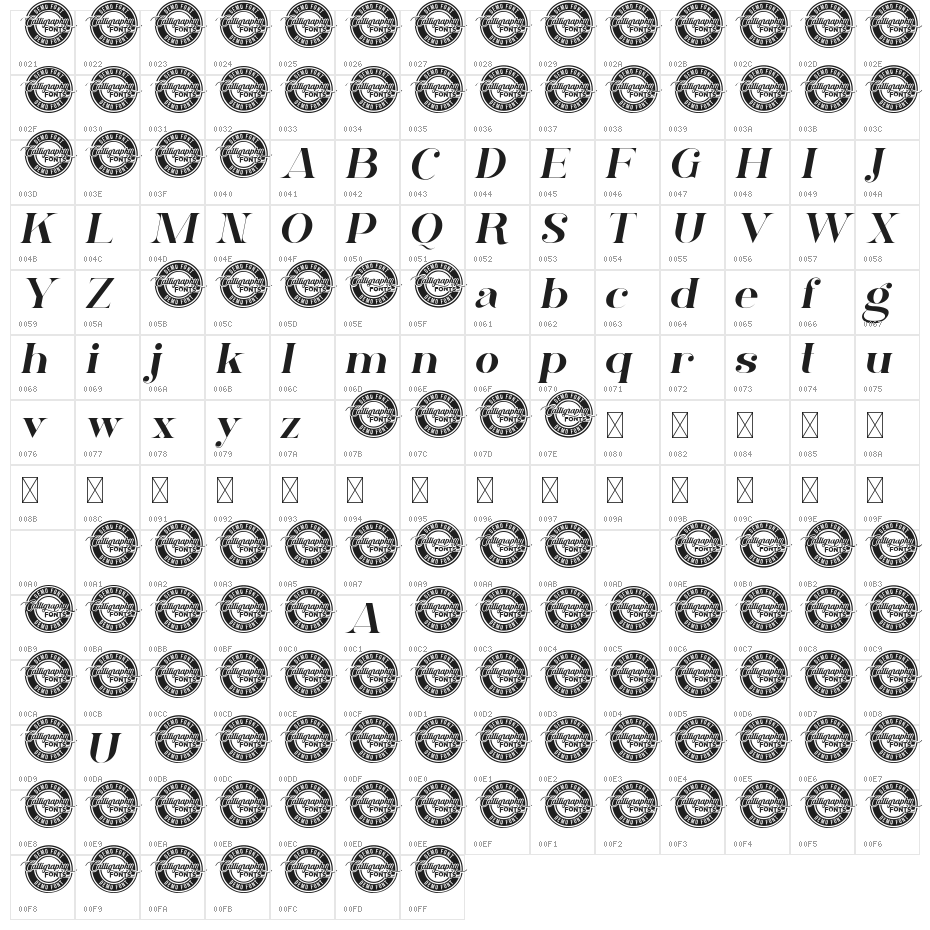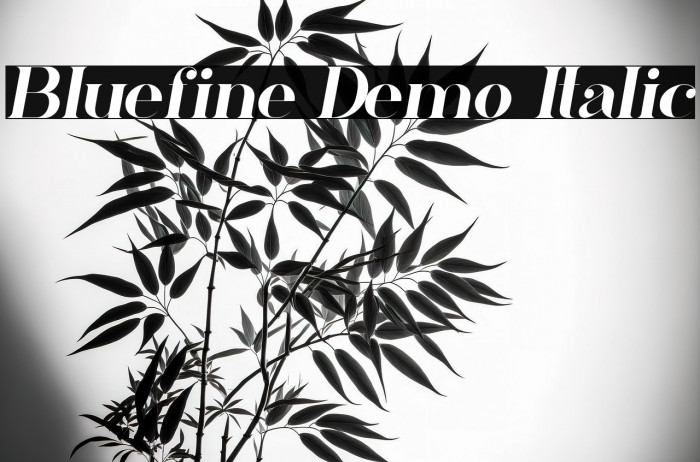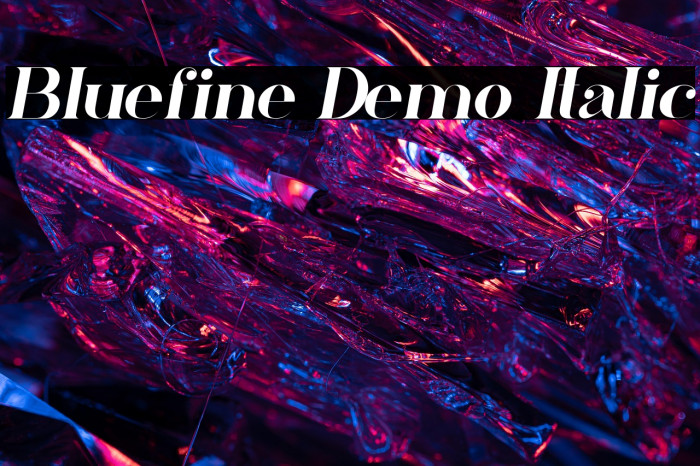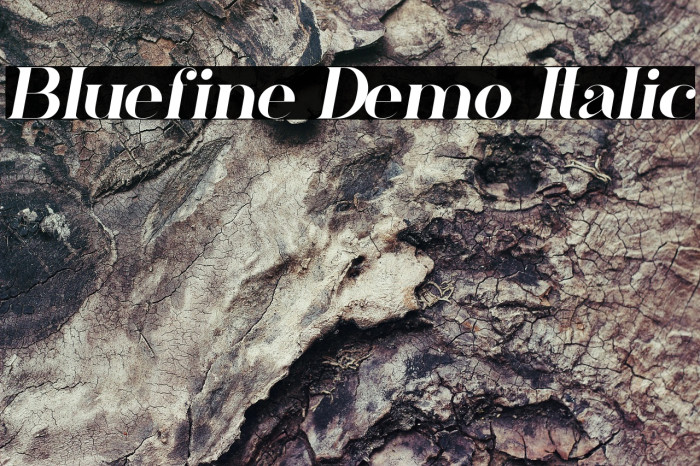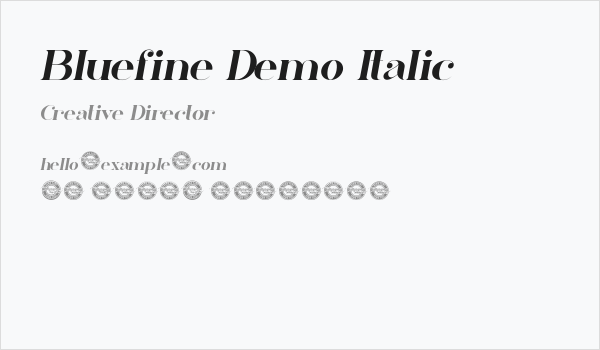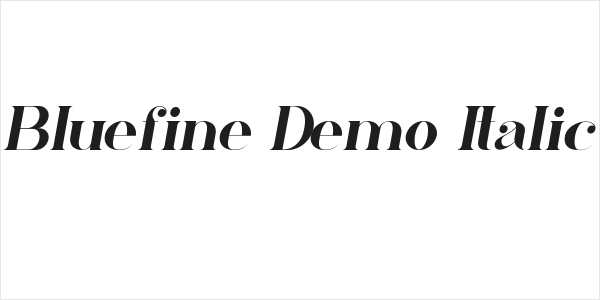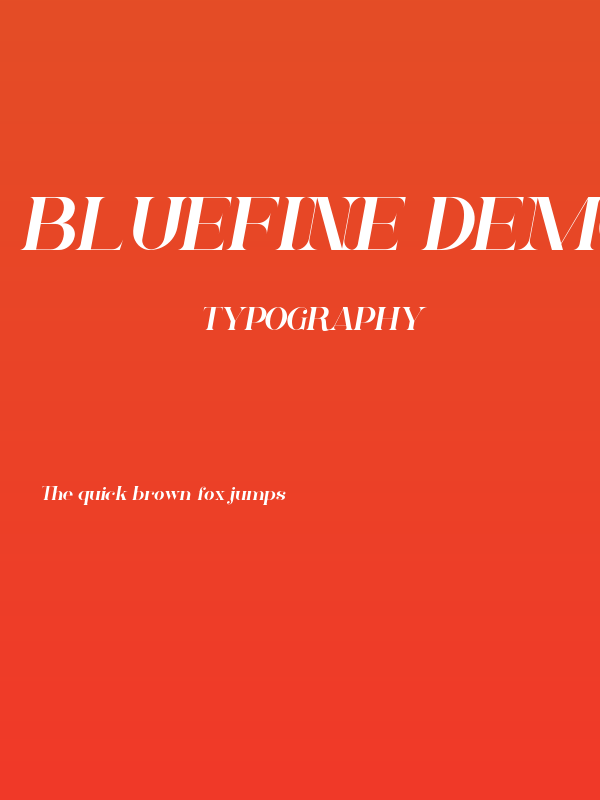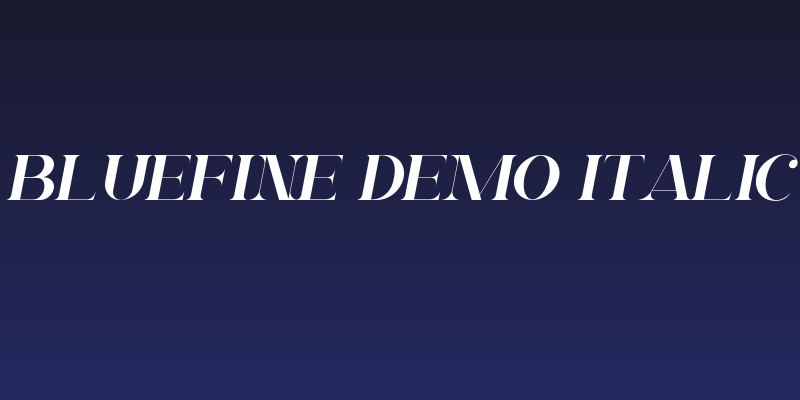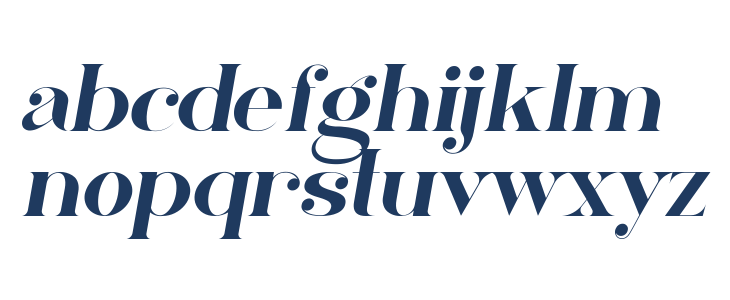
Bluefine Demo Italic Font
Bluefine Demo Italic Description
This elegant serif font features a sophisticated italic style with a high contrast between thick and thin strokes. The uppercase letters are tall and commanding, while the lowercase letters maintain a graceful flow. The font's design includes subtle curves and sharp serifs, adding a touch of refinement and class. The overall appearance is both modern and timeless, making it suitable for a variety of design applications. The font's special characters are crafted with the same attention to detail, ensuring consistency throughout.
| Use Case | Headlines, Logos, Editorial design |
| Proposed Projects | Ideal for luxury branding, editorial design, wedding invitations, and high-end product packaging. |